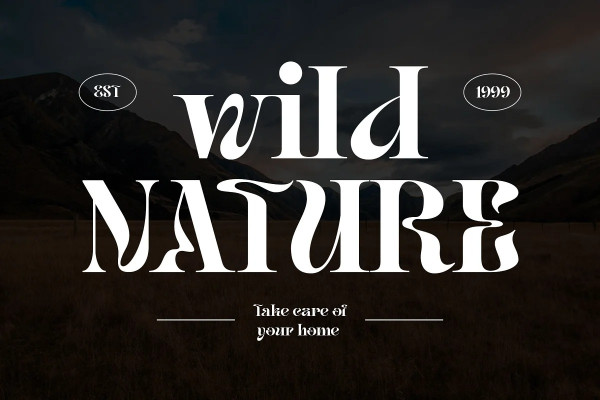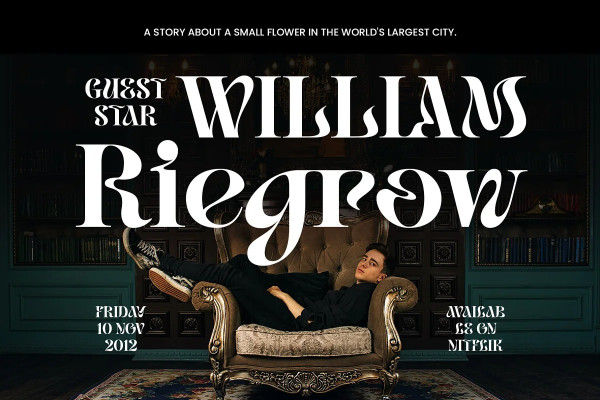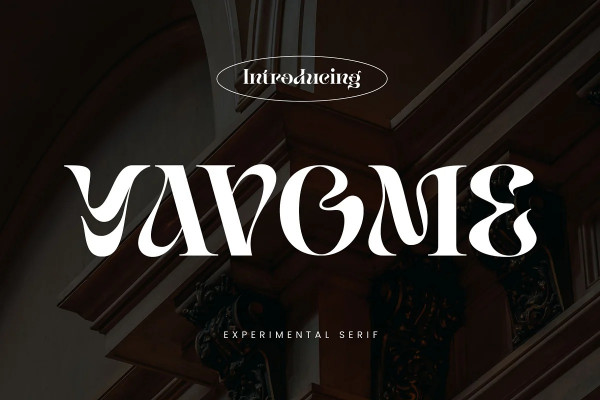
Yavome Font
Yavome Font is a quirky Serif font, with modern experimental shapes. Designed with high contrast and artistic curves, it gives a dynamic impression and graceful movement with additional special characters!